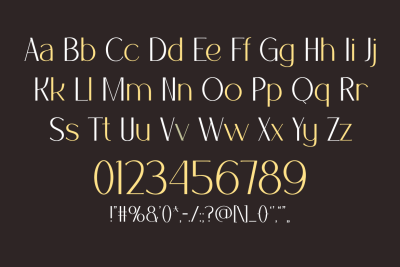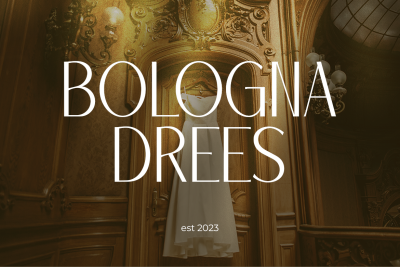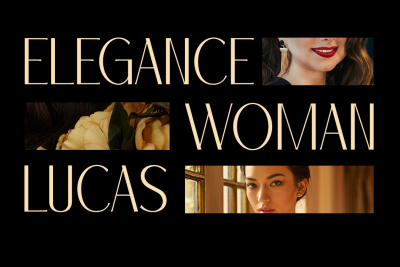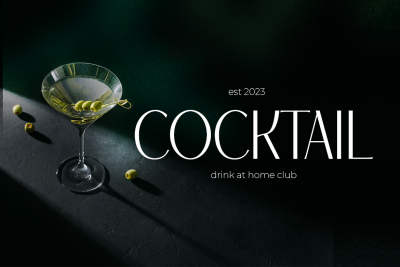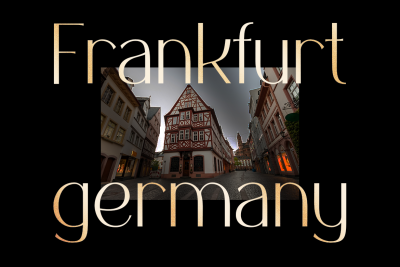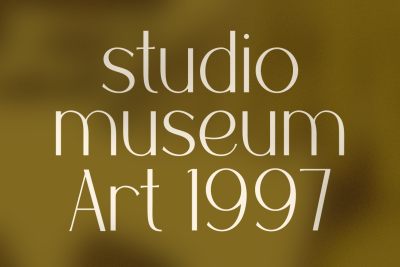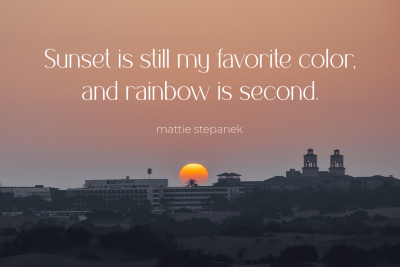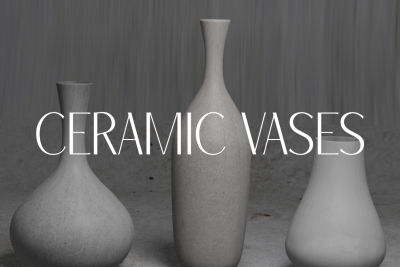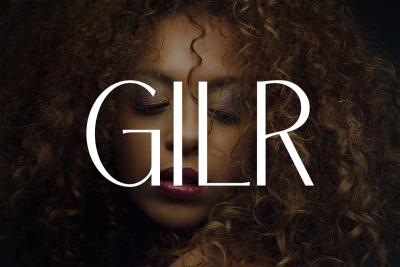
Instagram Font Widya is a refined and elegant modern classic display font that perfectly blends sophistication and versatility. With its clean, high-contrast letterforms and sleek geometric details, this font commands attention while maintaining grace. The font draws inspiration from timeless architectural aesthetics, as reflected in its structured yet delicate strokes. This makes it suitable for a wide range of visual projects. Instagram Font Widya adds a touch of luxury and professionalism, ensuring your designs convey both style and substance. Additionally, it is ideal for settings where a mix of modernity and elegance is desired.
The font’s balanced proportions and crisp finish allow it to shine in headlines, logos, and editorial layouts. Its bold presence is ideal for brand identities seeking a luxurious, high-end appeal. Furthermore, Instagram Font Widya adapts seamlessly to both modern and traditional themes. Its legibility ensures it remains impactful across digital platforms and print materials. Whether used for minimalist compositions or intricate layouts, it maintains its elegance and readability. This solidifies its position as a versatile choice for designers.
Instagram Font Widya Who Should Use This Font?
Instagram Font Widya is perfect for designers, entrepreneurs, and businesses aiming to create a lasting impression. Luxury brands, including those in fashion, beauty, and interior design, can benefit from its stylish and polished look. It works well for logos, high-end marketing campaigns, and elegant packaging materials. Furthermore, hospitality businesses like boutique hotels and fine dining establishments can use this font to enhance their branding.
Content creators and influencers can use this font to elevate their social media presence. It shines in Instagram posts, stories, and highlight covers, where a sophisticated tone is desired. Editorial designers can also craft striking magazine layouts, brochures, and digital publications with this font. For example, lifestyle magazines and travel brochures can benefit from its timeless appeal.
Wedding planners, event organizers, and stationery designers will find it valuable for invitations and event branding. Whether building a premium brand, designing an elegant ad, or creating an artistic editorial, Instagram Font Widya delivers sophistication and class. Its versatility ensures it remains a top choice for projects that require both aesthetic value and functionality.